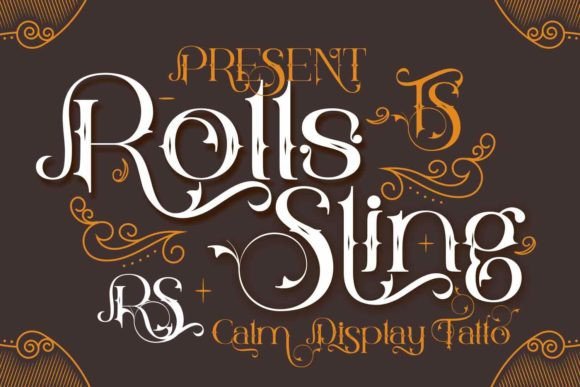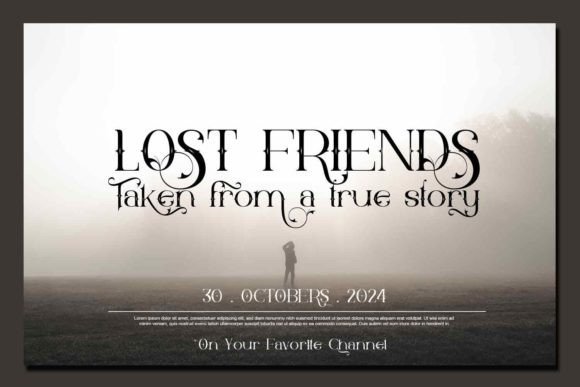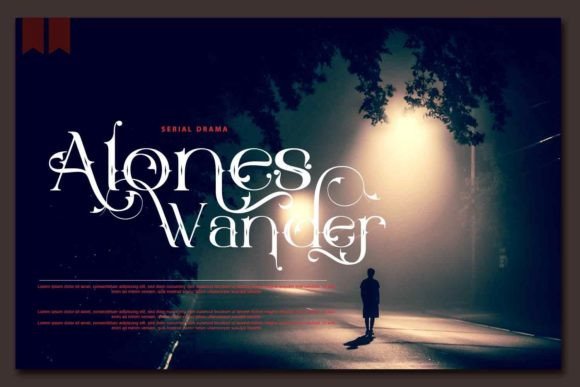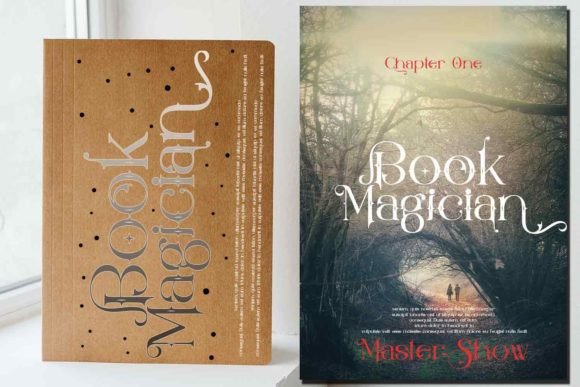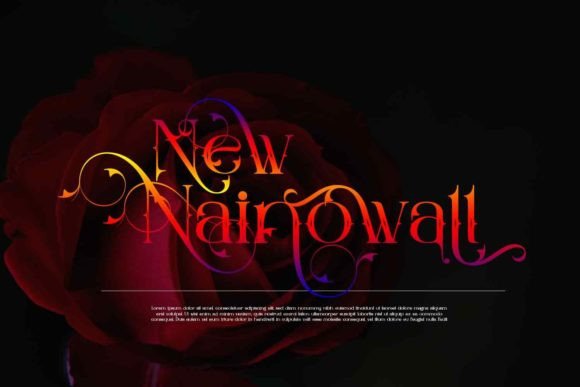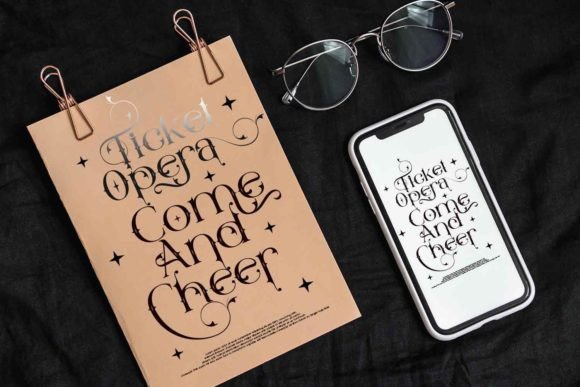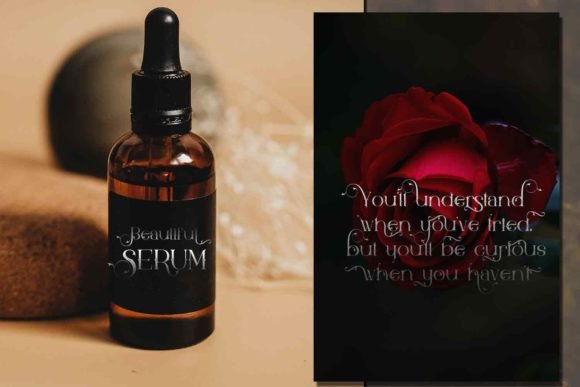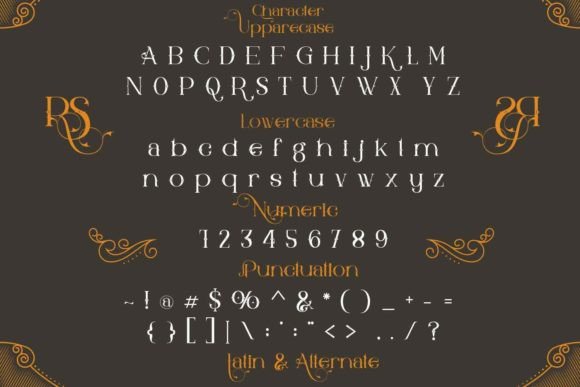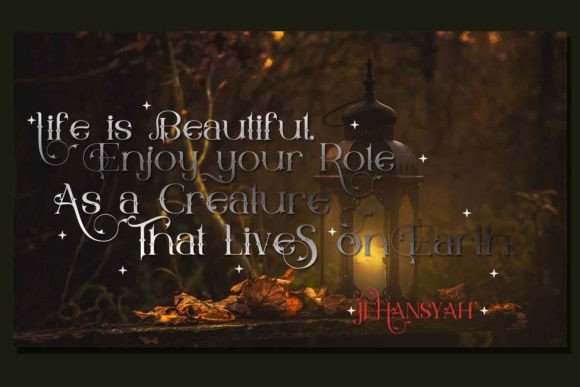
Rolls Sling Font
Rolls Sling is a tattoo-inspired blackletter font perfect for any design you wish to create. Fall in love with its incredibly versatile style and use it to create gorgeous wedding invitations, beautiful stationary art, eye-catching social media posts, and much more!